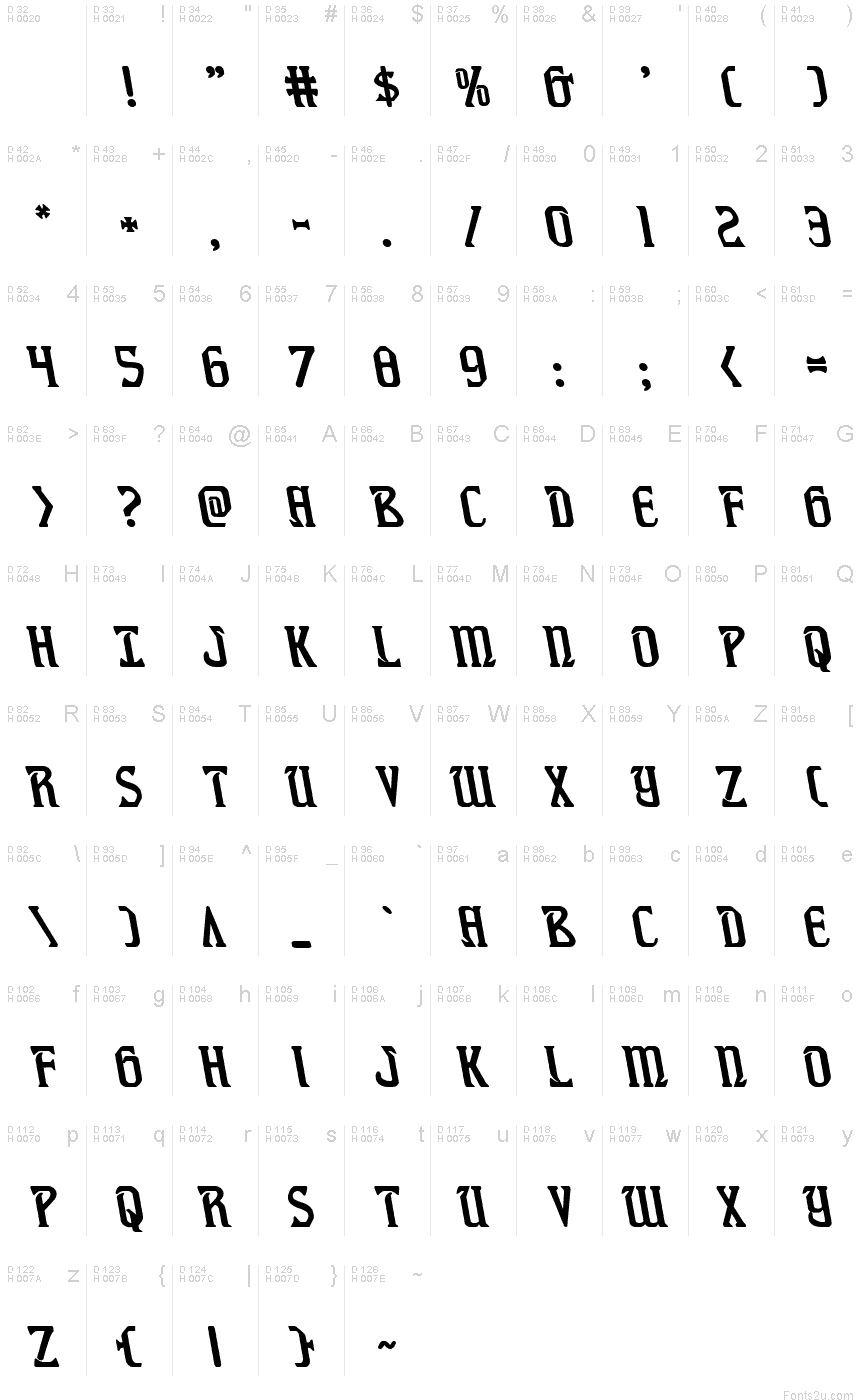
Fiddler's Cove Leftalic by Iconian Fonts is a free old-school decorative display font with a tall, theatrical silhouette. Narrow letters, exaggerated wedge serifs, and abrupt cuts through the strokes recall hand-painted show bills and nineteenth-century novelty type, with strong shifts between thick and thin sections.
Themes of stage entertainment, frontier folklore, and vintage spectacle make it useful for posters, event programs, and music packaging. The elongated capitals can turn a magazine opener or historical feature heading into a period detail, echoing the decorative lettering of playbills and painted signs and lending the page a lively antique voice.
Fiddler's Cove Leftalic